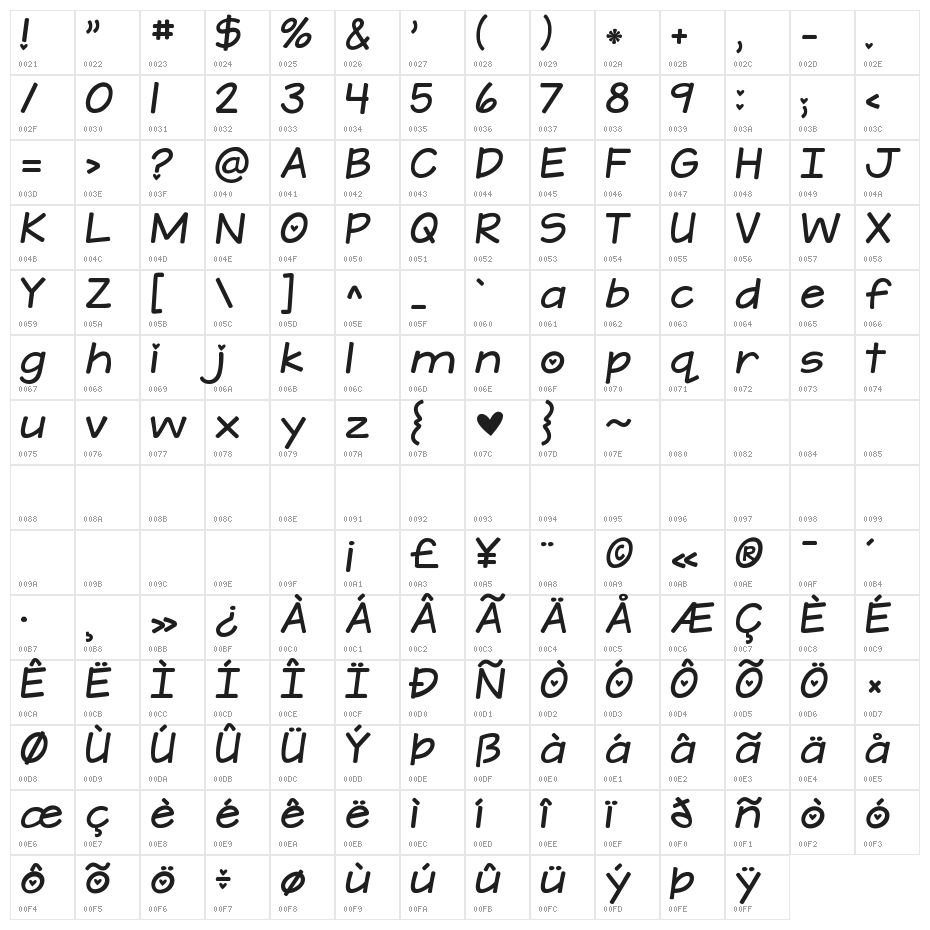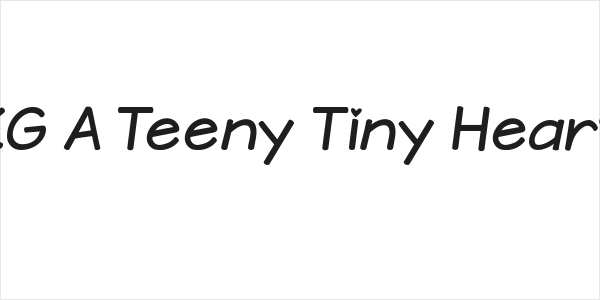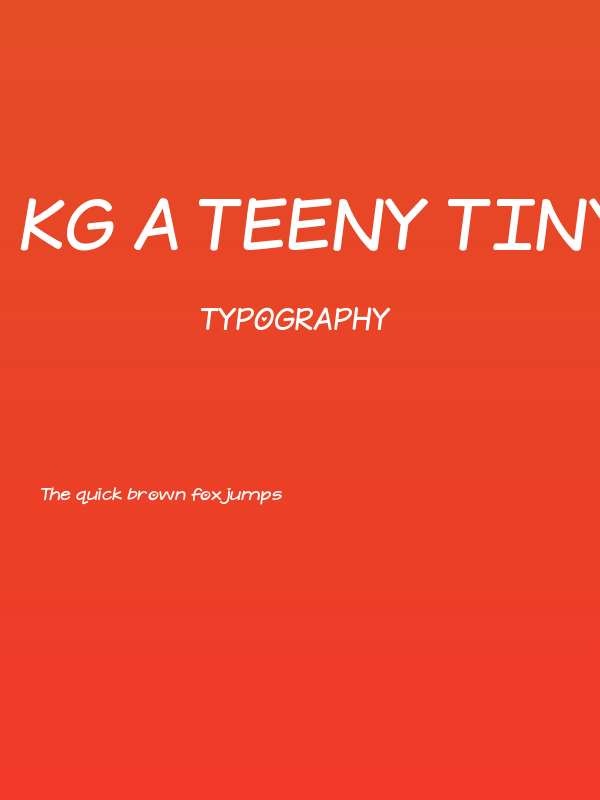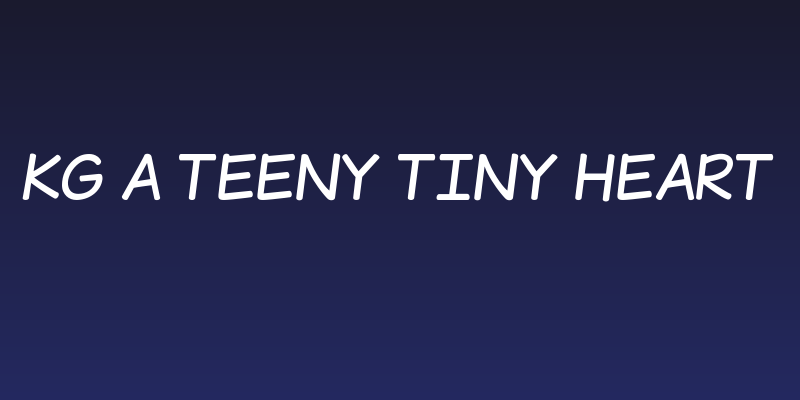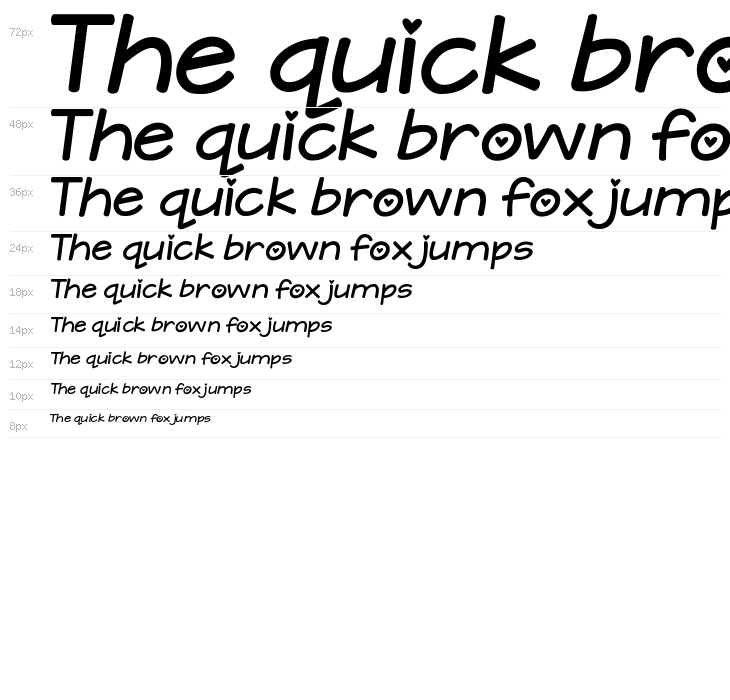
KG A Teeny Tiny Heart Font
KG A Teeny Tiny Heart Description
This playful and whimsical font features rounded, smooth strokes with a casual, handwritten style. The letters are slightly slanted, giving a dynamic and friendly appearance. The font includes a unique touch with small heart shapes integrated into some of the characters, adding a charming and distinctive element. The overall design is approachable and fun, making it suitable for informal and creative projects. The characters are well-spaced, ensuring readability while maintaining a lively aesthetic. This font is perfect for projects that require a personal and lighthearted touch.
| Proposed Projects | Ideal for greeting cards, children's books, playful branding, and social media graphics. |